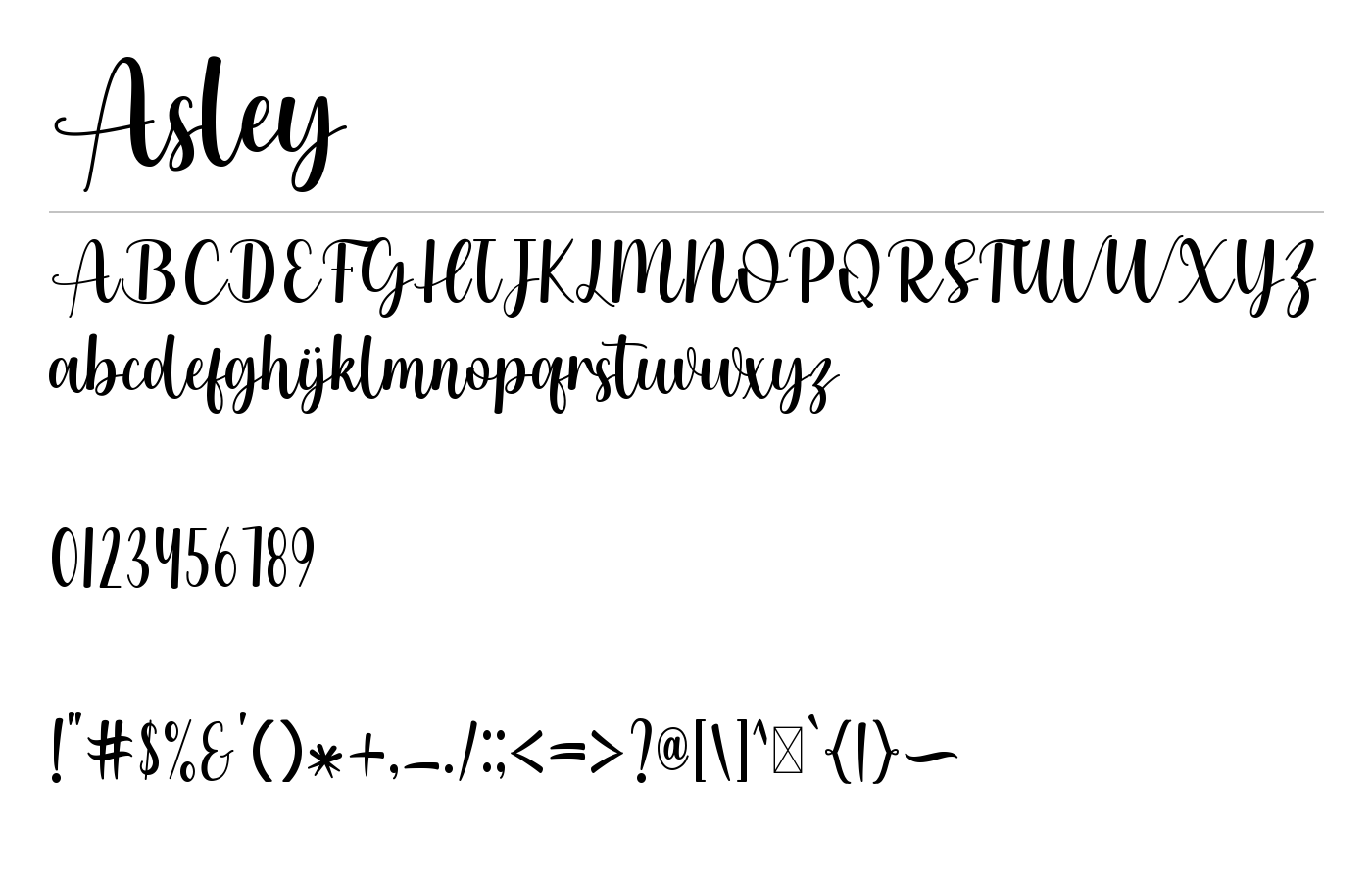
Asley is a playful and elegant script font with a smooth, flowing style that combines both thin and slightly bolder strokes, creating a charming handwritten feel. Its tall x-height and delicate curves make it perfect for branding, invitations, and creative projects seeking a warm, personal touch. The font’s unique letter shapes and consistent line weight lend a modern yet approachable personality ideal for fashion, lifestyle, and feminine designs.
Asley Font
About Asley Font